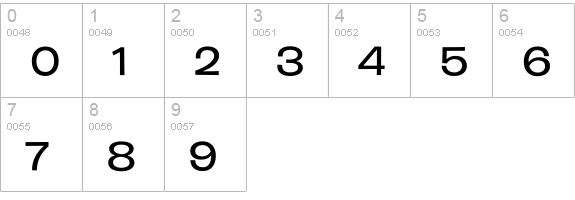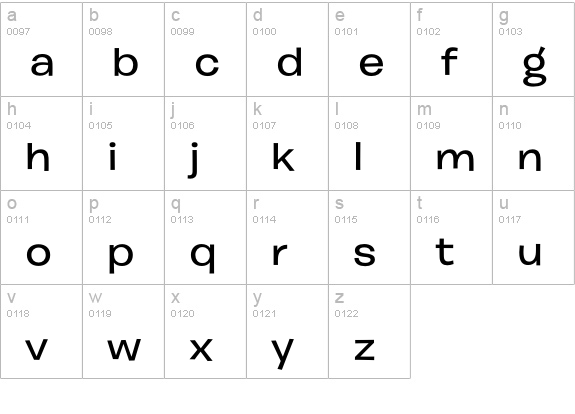
Burbank Big Wide Medium Font Details
Burbank Big Wide Medium is a balanced, medium-weight, extended-width variant in the Burbank typeface family \xE2\x80\x94 well suited to sub-headlines, navigation, and balanced editorial work.
Introducing Burbank Big Wide Medium font - a sleek and modern typeface that exudes confidence and sophistication. With its bold strokes and clean lines, this font is perfect for a wide range of design projects, from branding to advertising to editorial layouts. The Burbank Big Wide Medium font strikes the perfect balance between professionalism and creativity, making it a versatile choice for any designer. And the best part? You can download Burbank Big Wide Medium font for free at FontsMarket.com. This means you can add this stylish and impactful font to your collection without having to spend a dime. Don't miss out on the opportunity to elevate your designs with Burbank Big Wide Medium font - download it now and see the difference it can make in your projects.